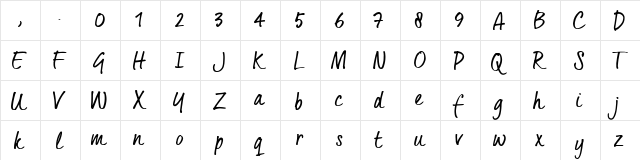
Quintus_TRIAL Regular
| Foundry | GEERT@JOEBOB graphics |
| Designer | Geert Dijkers |
Design Context for Quintus_TRIAL Typeface
Quintus_TRIAL takes a measured approach to typography — its balanced proportions and neutral character make it a reliable workhorse for both digital and print work.